Wood type in the 21st century
Creating the Catalpa wood type and posters.
We interviewed talented designers and researchers Rafael Dietzsch & Rafael Neder about the idea, background, and process of creating the Catalpa wood type and the letterpress posters.
In the autumn of 2022, a box of beautifully handcrafted letterpress posters from São Paulo finally arrived at our Prague office. Our new woodtype-inspired font Catalpa shines bright on each one of them, but the adventure began four years earlier.
At the 2018 ATypI conference in Antwerp, Rafael Dietzsch presented his Brazilian woodtype project research, and his talk inspired Veronika Burian and José Scaglione, who were at the time working on Catalpa typeface. Veronika, José, and Rafael decided to join forces and test Catalpa in a real environment, since nothing proves the quality of a typeface like using the original technology and material: letterpress and wood.
A few days ago, still excited with the results, we talked with the two main protagonists of our woodtype project — Brazilian designers, researchers, and educators Rafael Dietzsch and Rafael Neder — about the idea, background, and process of this amazing experiment.
First of all, could you tell us about the history of wood type in Brazil? Where did the tradition come from?
This history is still being written. It may look strange, but much of the traditional knowledge has been lost to time.
Of course wood type existed in Brazil, but most of it was imported from the United States and Europe. During the 20th century, wood type in Brazil was made mostly by Funtimod, the country’s largest manufacturer.
Sadly, there are also frequent reports of how wood types were discarded or burned during the 1990s. Today we can get a glimpse of this scene by looking at type catalogues from local manufacturers and distributors.
As far as I know, of the two most important manufacturers of the 20th century, only one sold wood types but with German designs. Despite this, I have some seen large types handcrafted with plywood. There is a lot to be researched about this past.
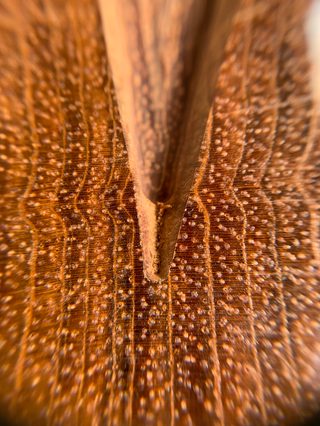
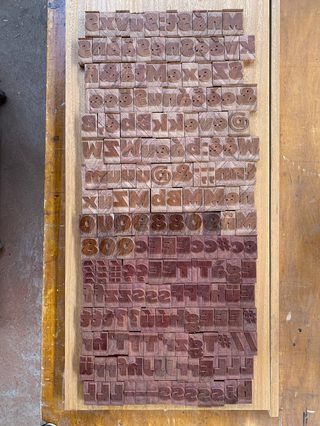
You both are graphic designers, researchers, and educators. How did you personally get to work with such a physical discipline as letterpress?
My interest in letterpress was born from my teaching practice. In mid-2000 I was a full-time UI/UX designer, but when I started teaching I felt the need for a better understanding of how traditional technologies shaped contemporary typography.
It’s funny because I was the kind of nerd who likes to code, but in my spare time I practised calligraphy and letterpress printing. At that time, I took some workshops with local printers including the Oficina Tipográfica São Paulo (OTSP), but it was at Tipografia Matias where I found my main laboratory. It wasn’t until around 2009 that some friends and I started to teach in regular letterpress classes.
Over time I designed and printed several works exploring the letterpress technique (both on academic and commercial scales). Meanwhile, I started researching digital fabrication (3D printing, CNC, lasercutting, etc.) and see them as a way of repairing old types and producing new ones.
My first contact with wood type was at the letterpress workshop at the University of Brasília (UnB) and, since I was always snooping around and asking questions, the typographers in charge of the workshop taught me the basics of letterpress composition. I remember I spent quite some time playing around with wood type at UnB. In comparison to lead type, wood sorts are easier to handle, to compose, and to make small print runs, and also easier to clean and organise back into the type cases.
How did you come to work with TypeTogether on the Catalpa wood type project?
Our research on wood type in Brazil started around 2017, with an invitation by Rafael Neder and Leonardo Buggy to join the project. The first outcome of this research was presented at the ATypI conference in Antwerp in 2018. After my presentation I was hanging around during the coffee break and had some of the wood sorts in my hand. I had a conversation with Veronika Burian, who showed an interest in the project while looking at the types. She mentioned she was working on a project that had a lot to do with wood type and about her wish to see that project cut in wood.
In August 2020 during the COVID-19 pandemic, José got in touch and asked me about the possibility of cutting one of TypeTogether’s typefaces in wood. Discussing the topic with Rafael Neder, we had the idea to invite into the process Nícolas Loiola Camargo, one of his students at the Typography Postgrad course at Senac, São Paulo. Apart from being a brilliant designer, Nícolas also makes a living as a carpenter. For his degree project he developed the Ibirapitanga type family, from its inception as a digital font to its materialization as wood type. It was clear that Nícolas was the right person to help with the project since he had the skills and all the woodworking tools at his home workshop.
With Nícolas on board, we joined forces to produce the third generation of wood types. This meant improving the methods and final results. I was responsible for organising the whole process and preparing the digital files to be cut in wood. Nícolas was responsible for selecting and preparing raw materials and for supervising the CNC milling process. Rafael Neder was responsible for printing the final posters.
What are the other technological aspects that affect the final outcome?
Since we don’t have access to old cutting machines, from the beginning we chose to cut the types using modern methods. For good results it is necessary to combine good CNC gear, attention to details, and enough time to get it right.
Quality of raw materials and equipment definitely have an influence. I remember we had some issues with the quality of CNC milling. Something had to be re-cut and by luck we had some extra slabs.